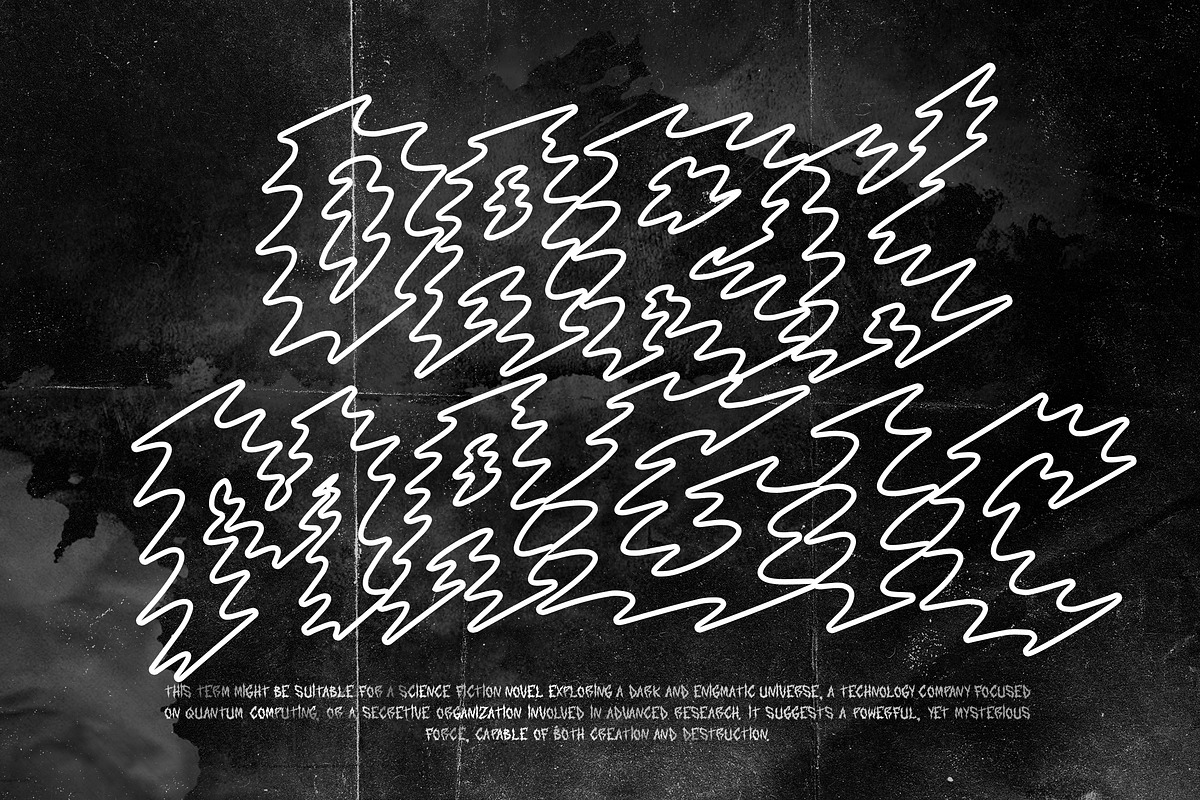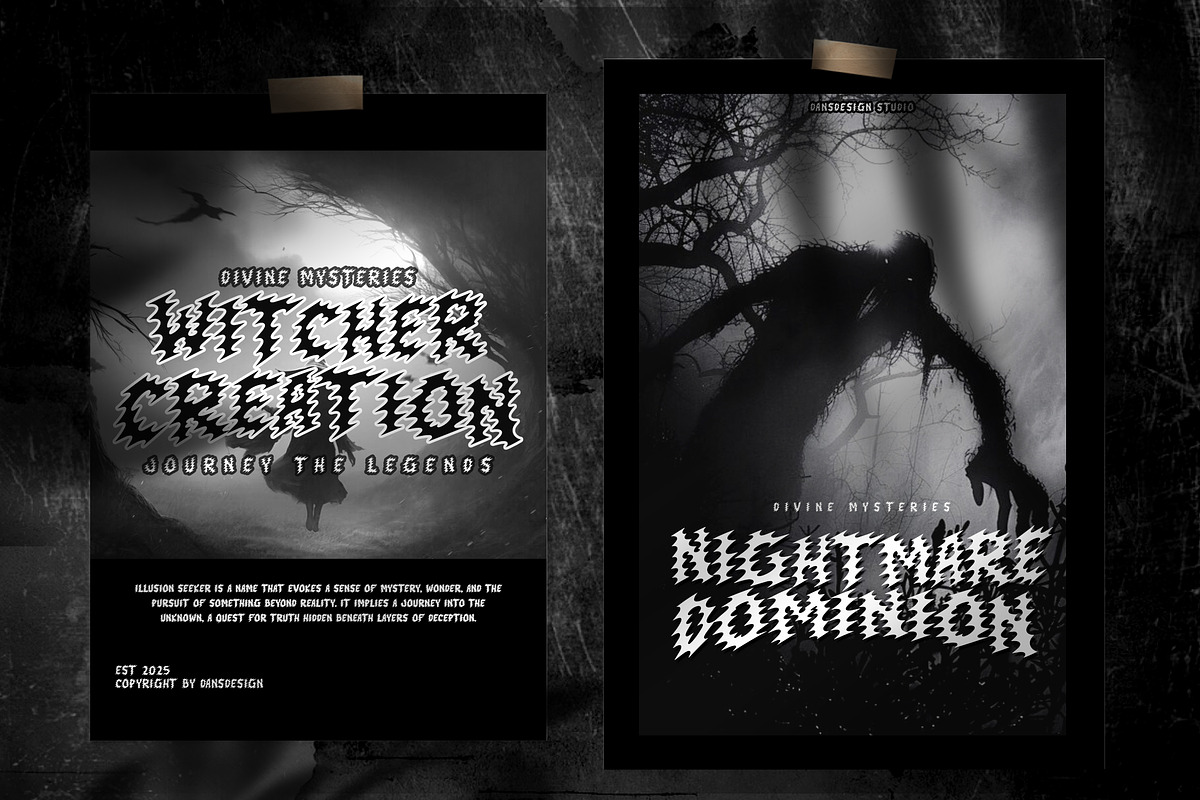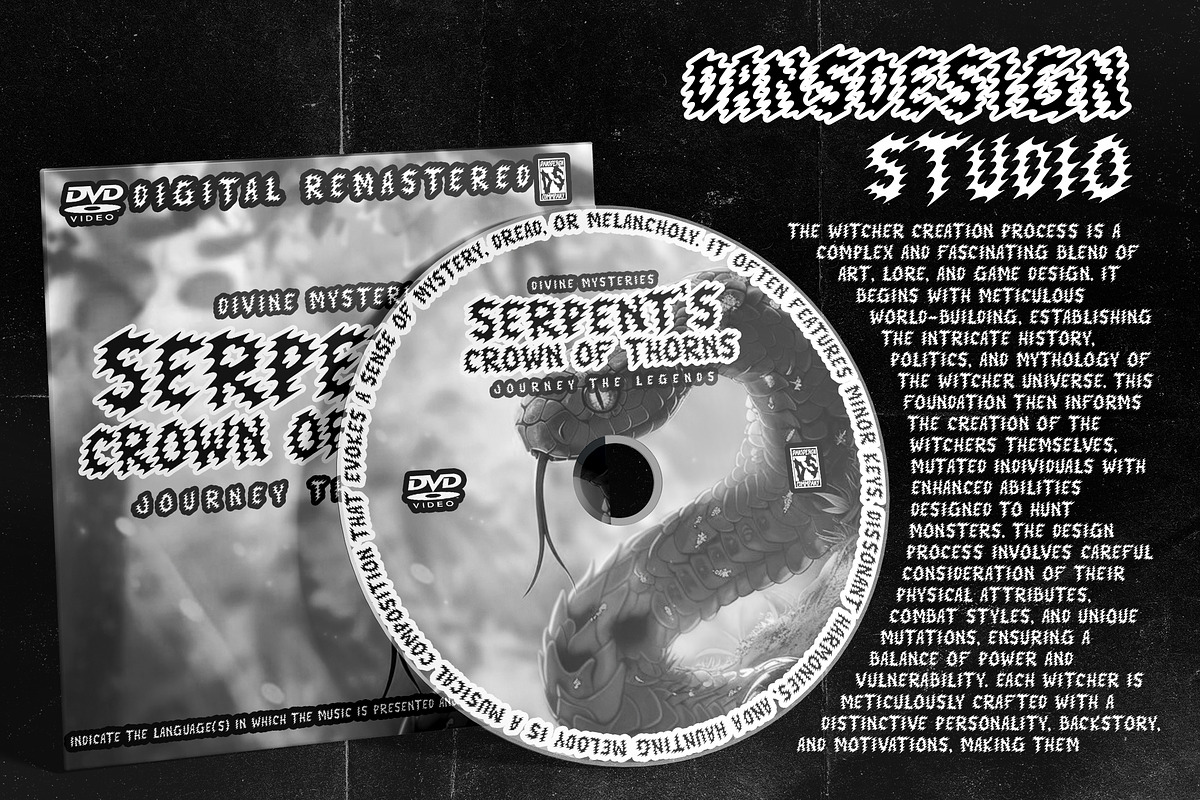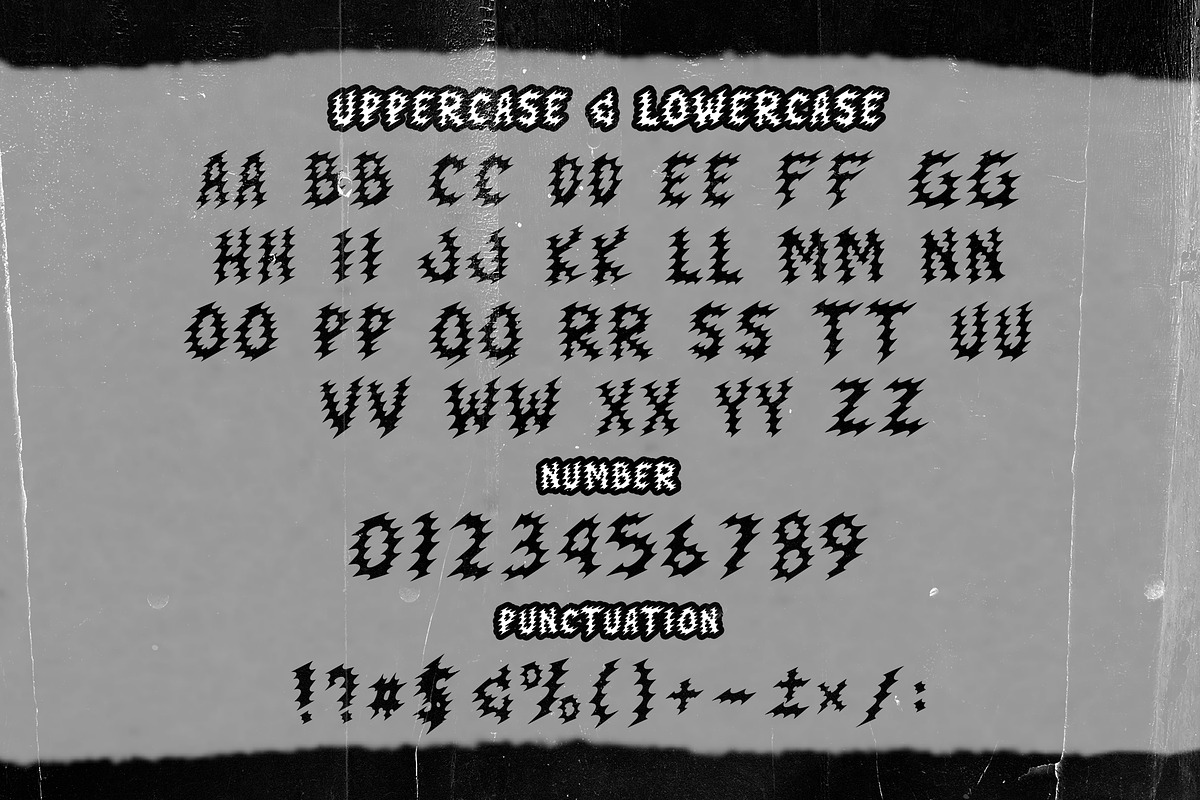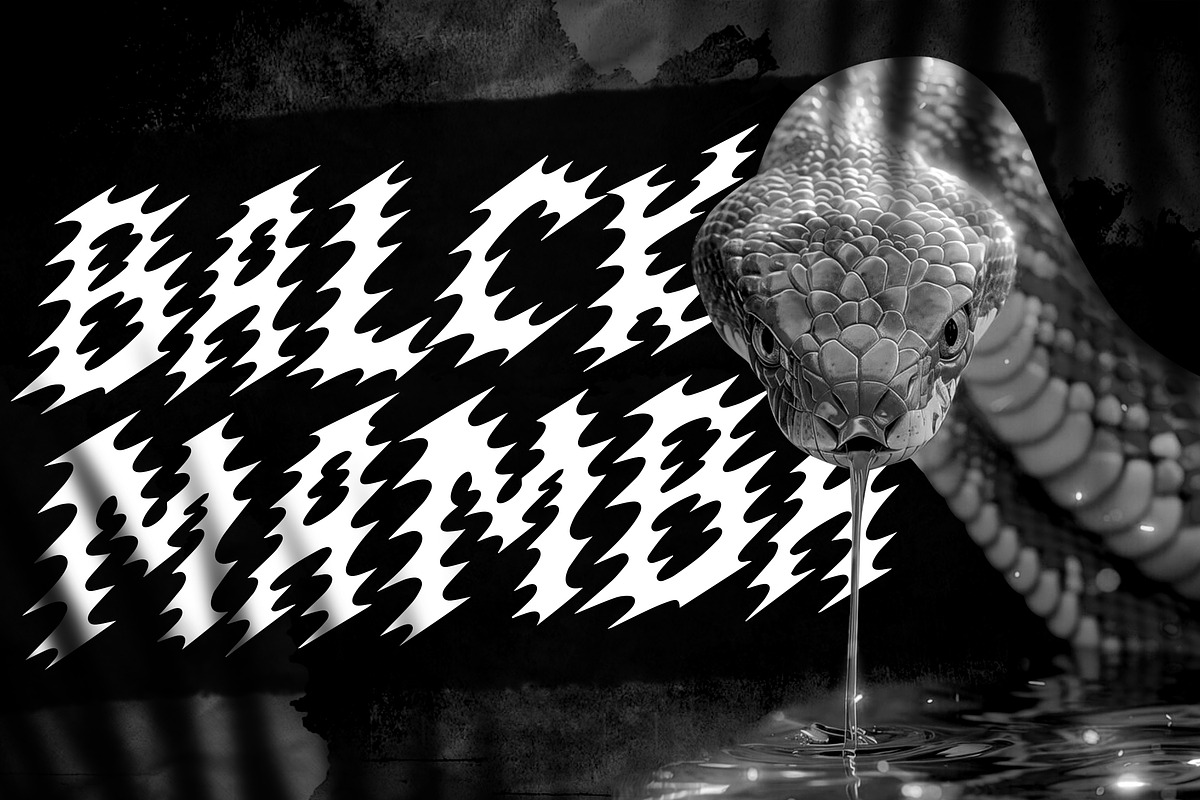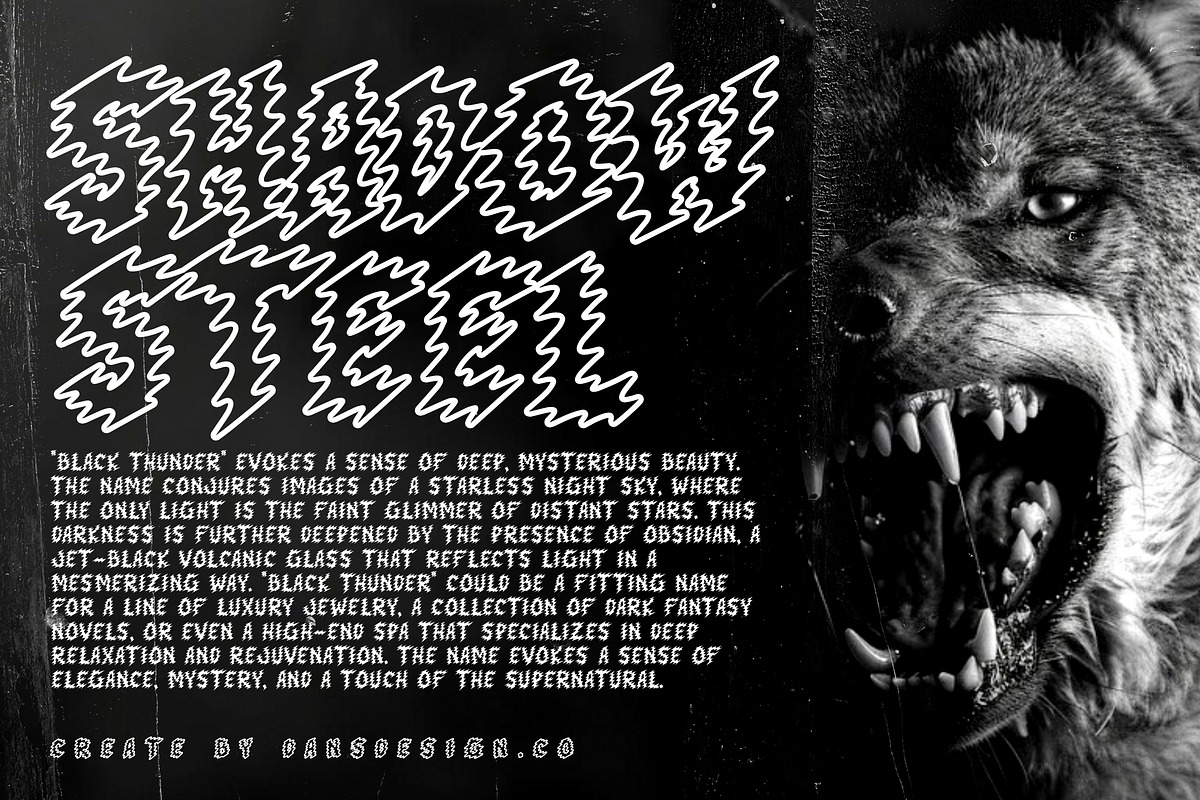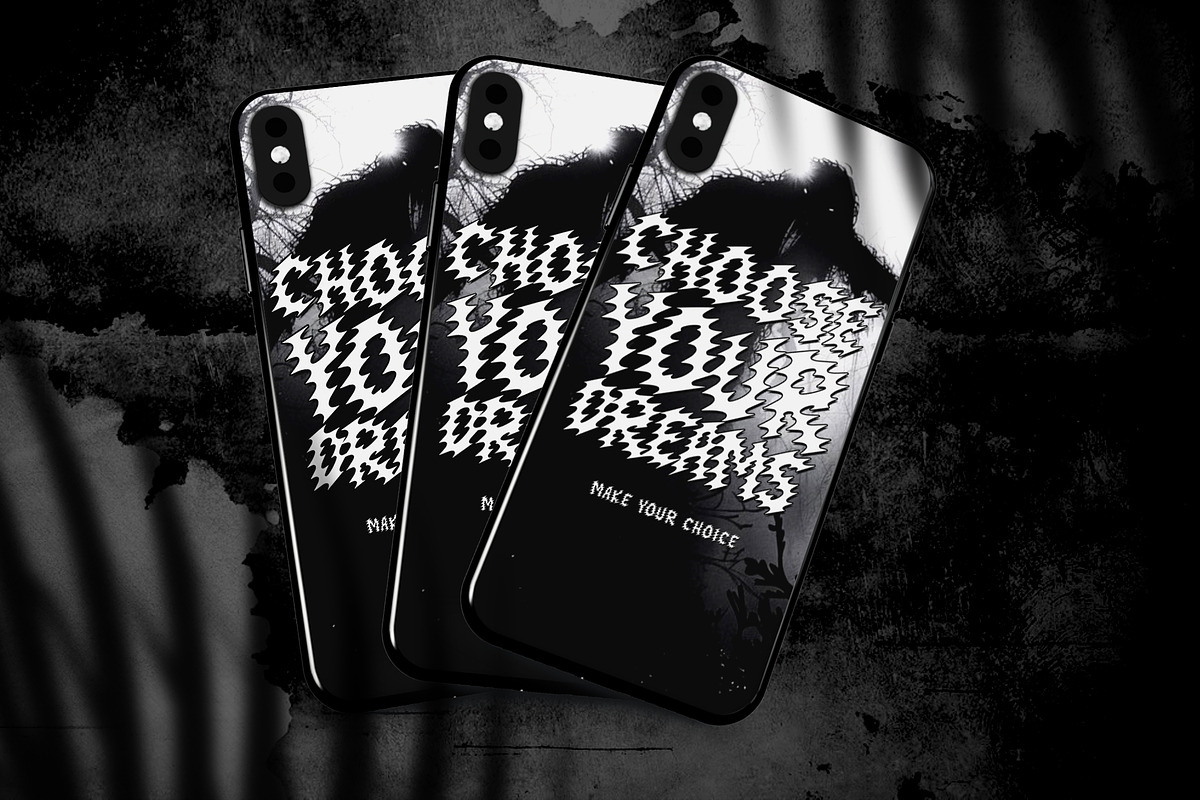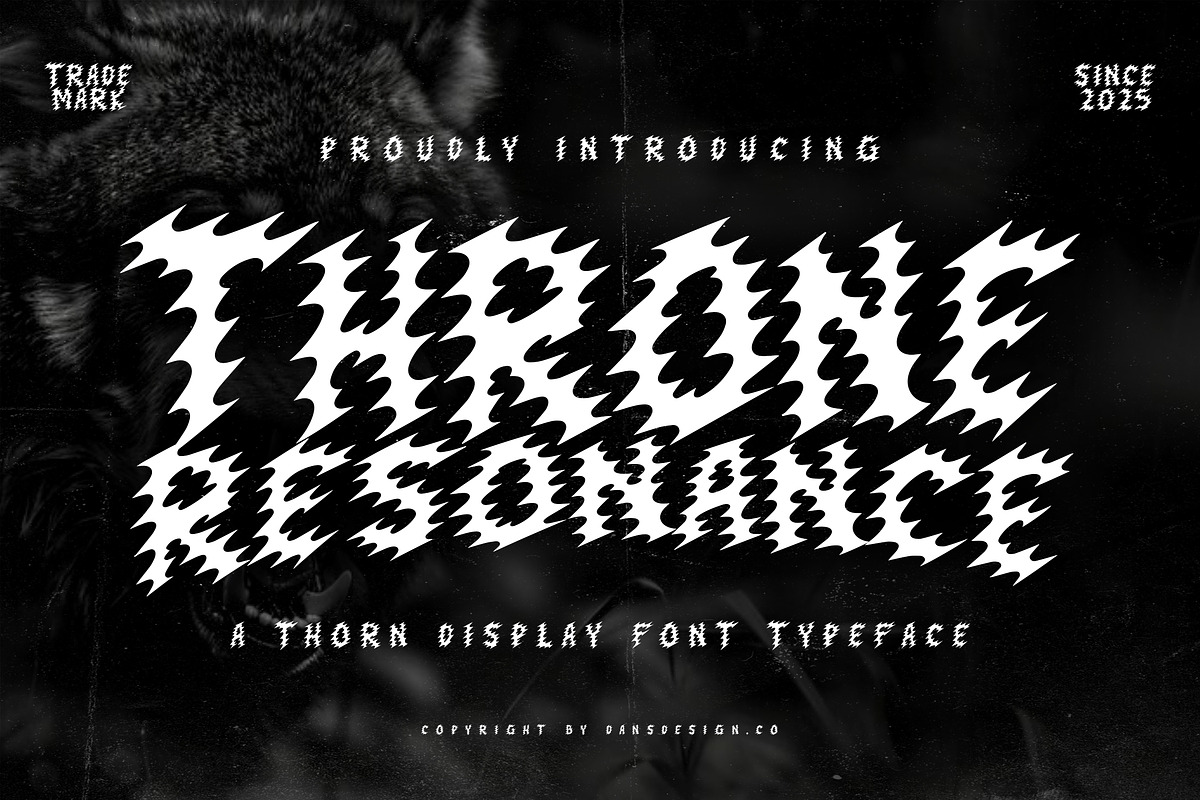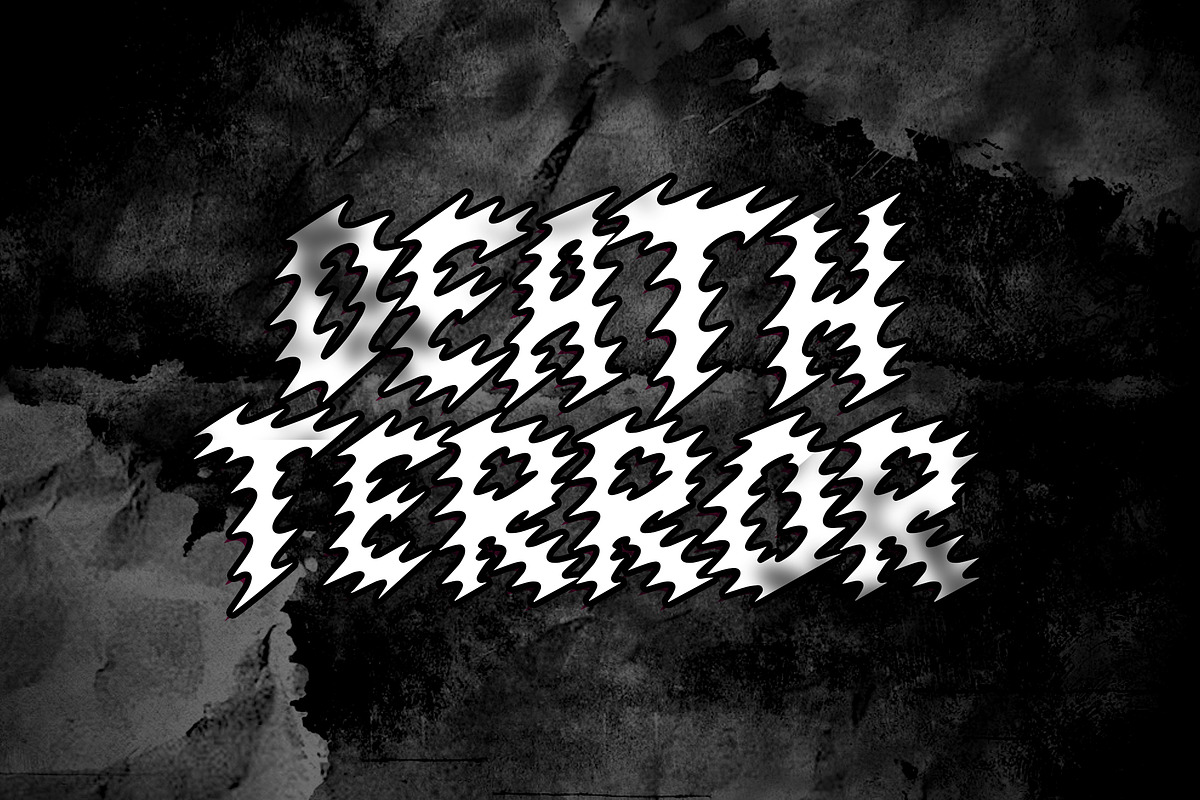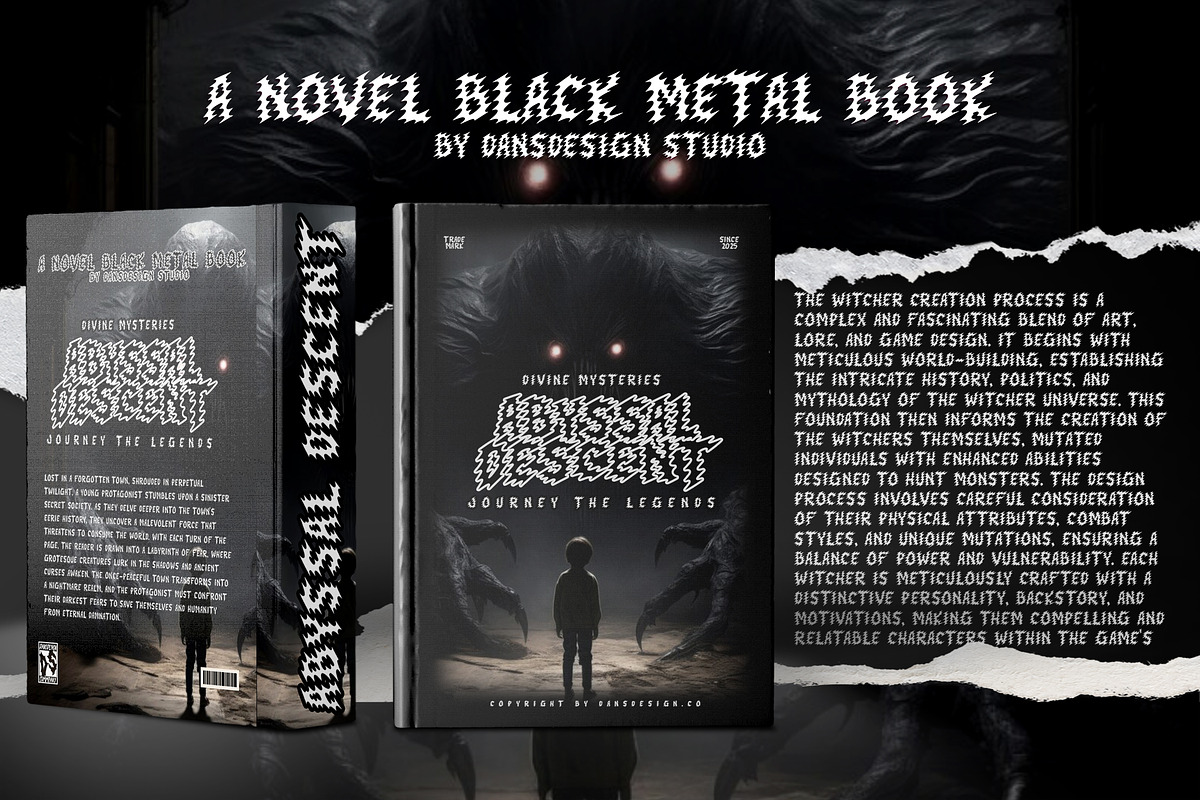
Throne Resonance Metal Thorn Display
Throne Resonance – Thorn Display Font for Horror Posters, Metal Artwork, and Extreme Visual Statements
Throne Resonance is a high-impact thorn display font that crackles with intensity, distortion, and edge. Designed with serrated forms and electrified curves, each letter feels like a visual scream—perfect for horror aesthetics, underground art, and loud, rebellious visuals.
With its jagged rhythm and sonic-inspired shapes, this font brings brutal energy to album covers, dark branding, and bold statement designs. From gothic expressions to glitchy themes, Throne Resonance transforms ordinary text into aggressive, genre-pushing graphics.
Horror movie titles, poster art, and book covers Metal band logos and underground zines Halloween visuals, glitch art, and dark-themed campaigns Experimental layouts, digital collages, and zine culture Twitch overlays, album drops, and merch mockups
Bold thorn-style display font with distorted edges Sharp, hypnotic letterforms full of energy and movement Handcrafted for edgy visuals and high-contrast aesthetics Ideal for bold headlines and short text impact Includes uppercase, lowercase, numbers & symbols PUA encoded for full access to all characters Formats: OTF / TTF / WOFF / WOFF2
Throne Resonance isn't just a font—it's a raw visual voice. Whether you're designing for fear, noise, or bold emotion, it slices through the ordinary and demands attention.